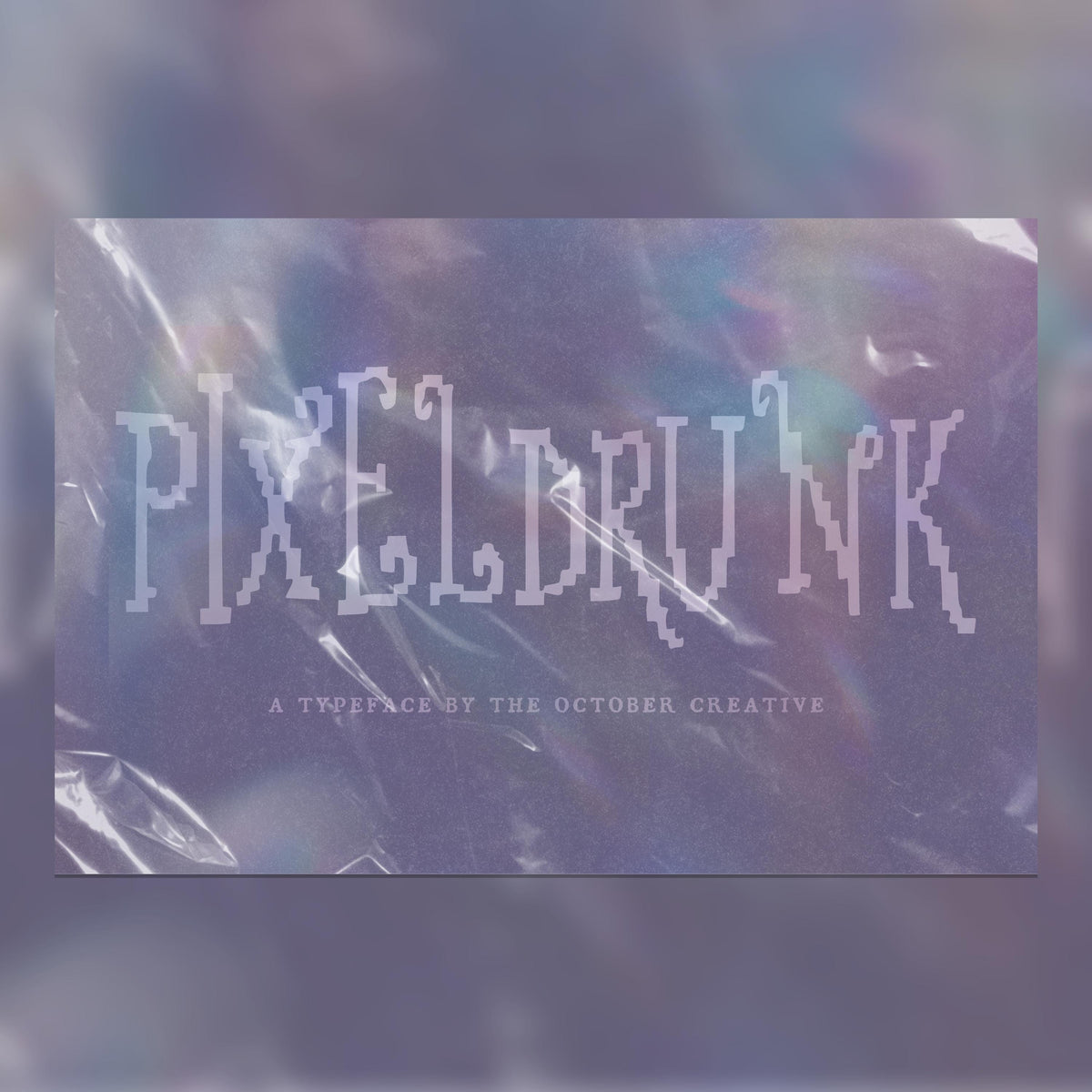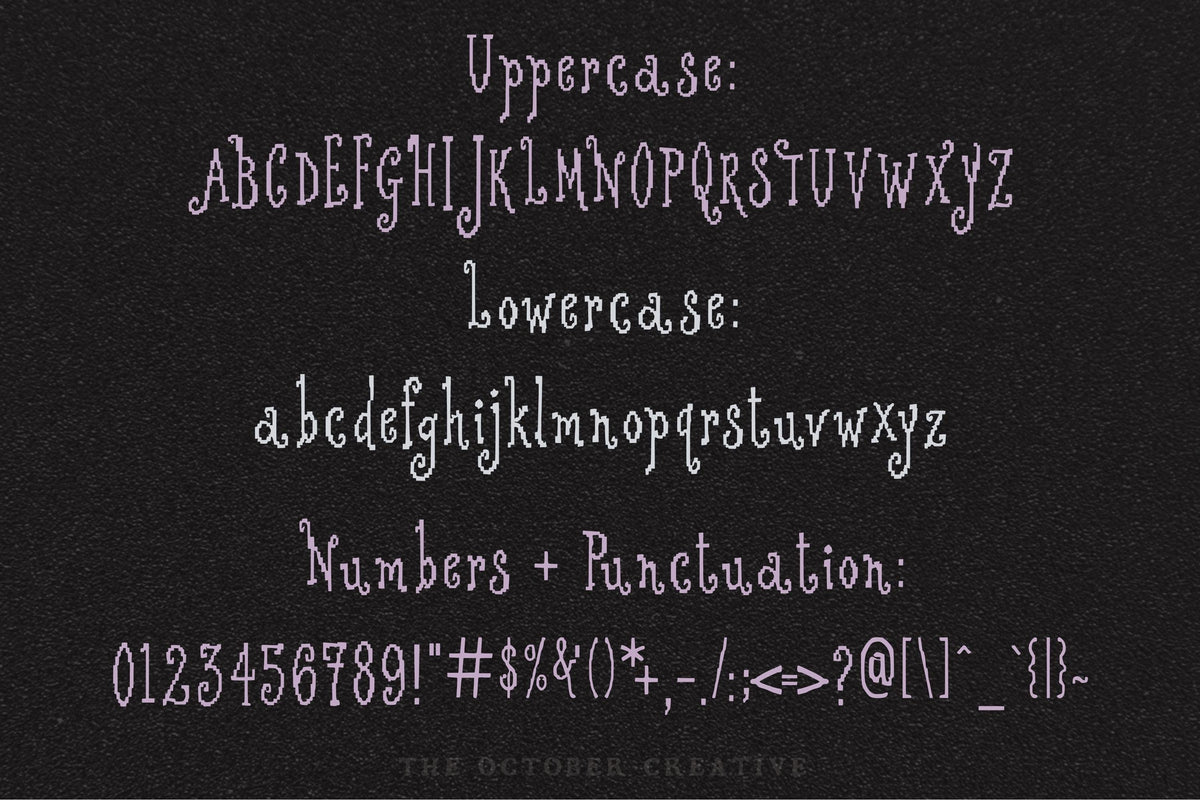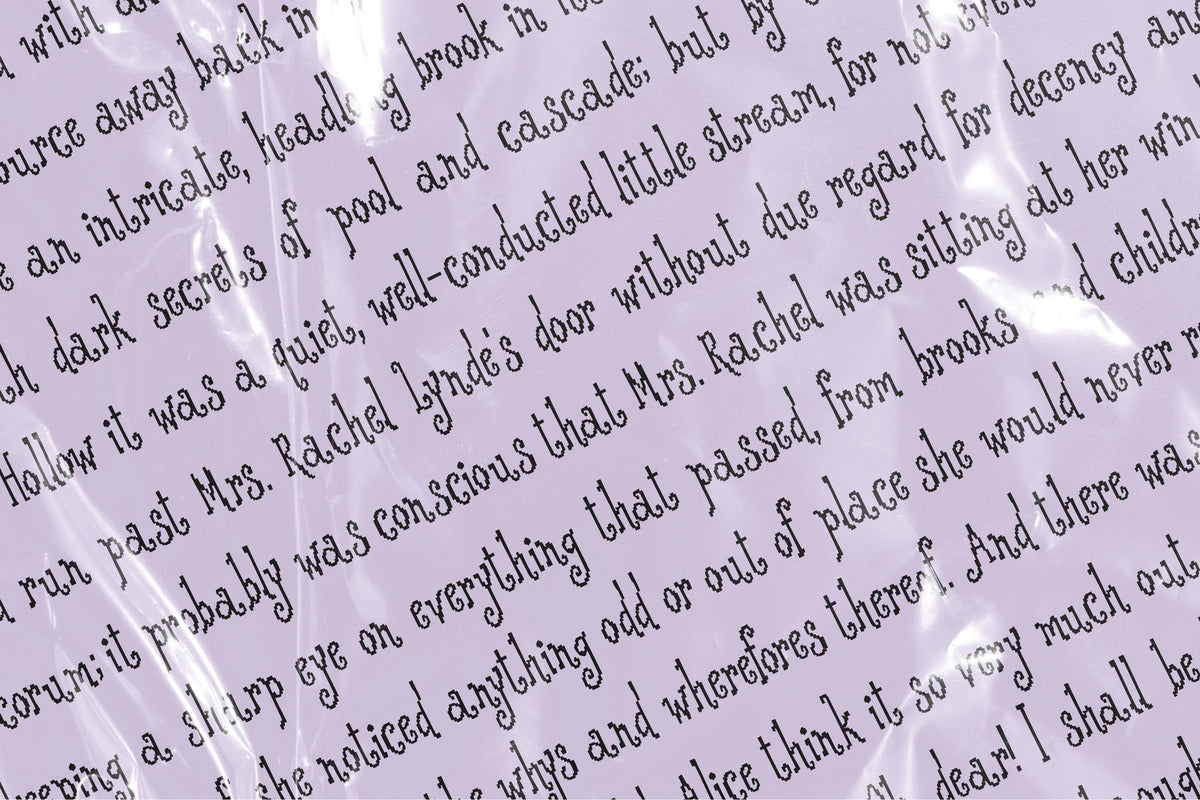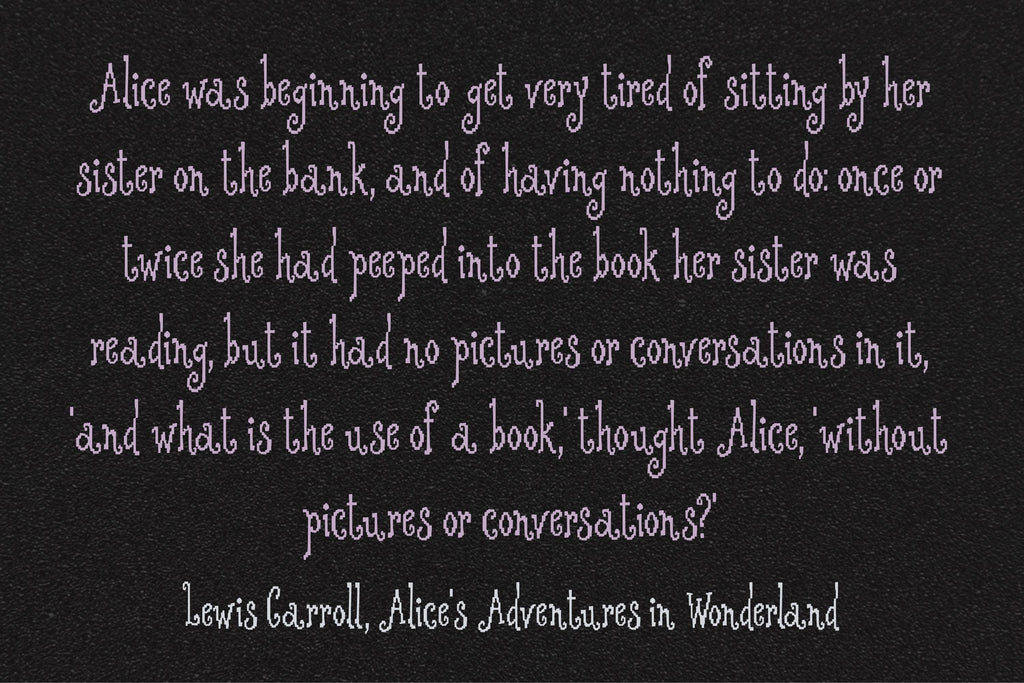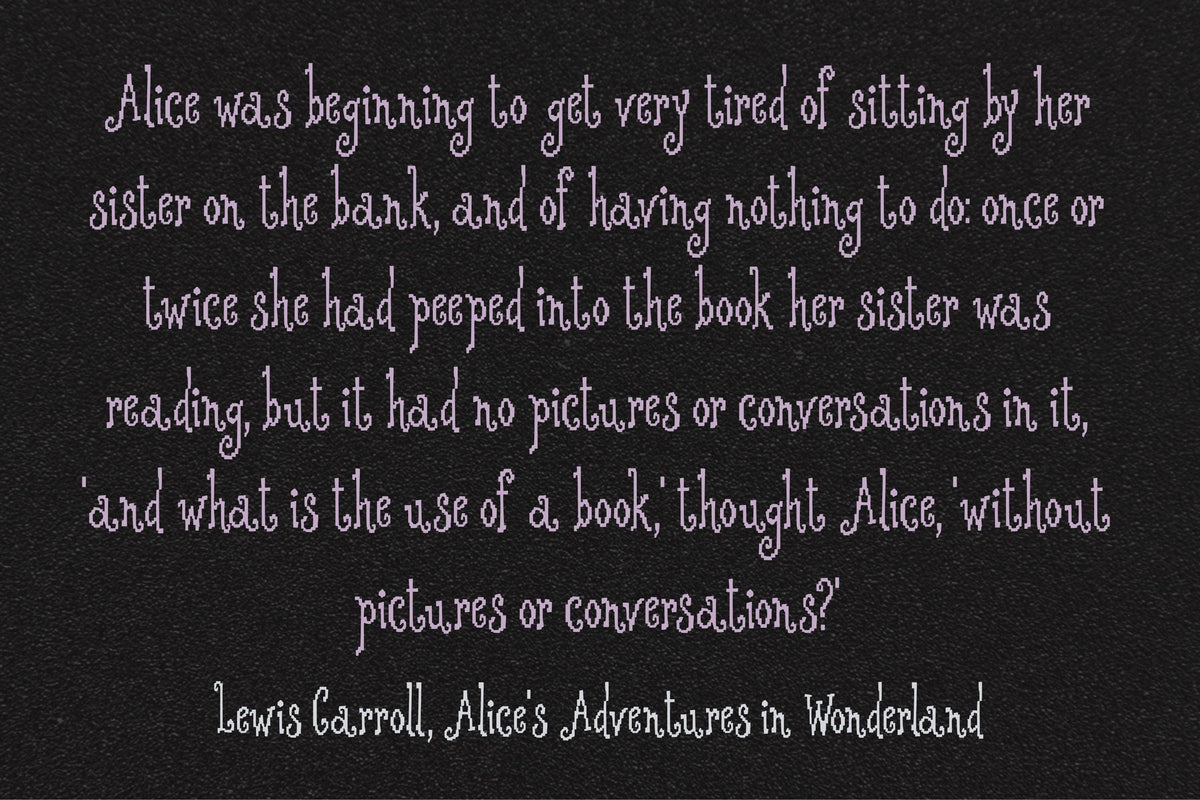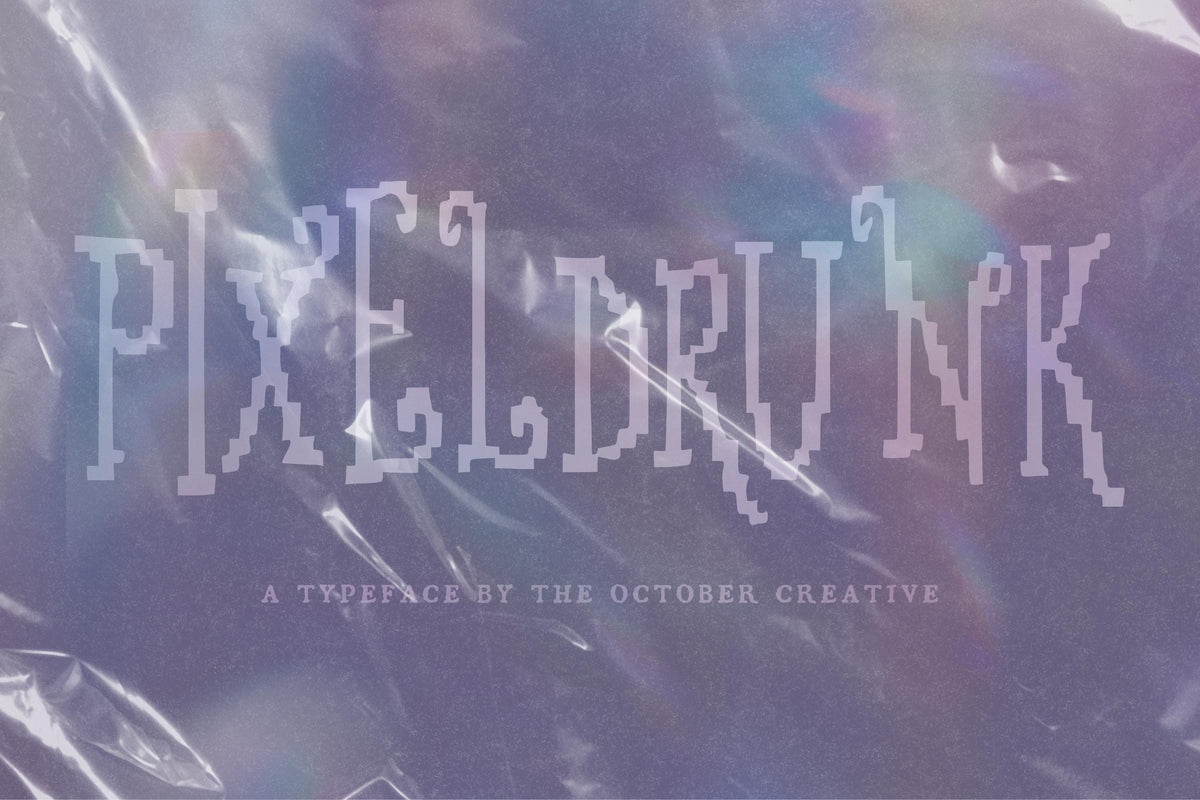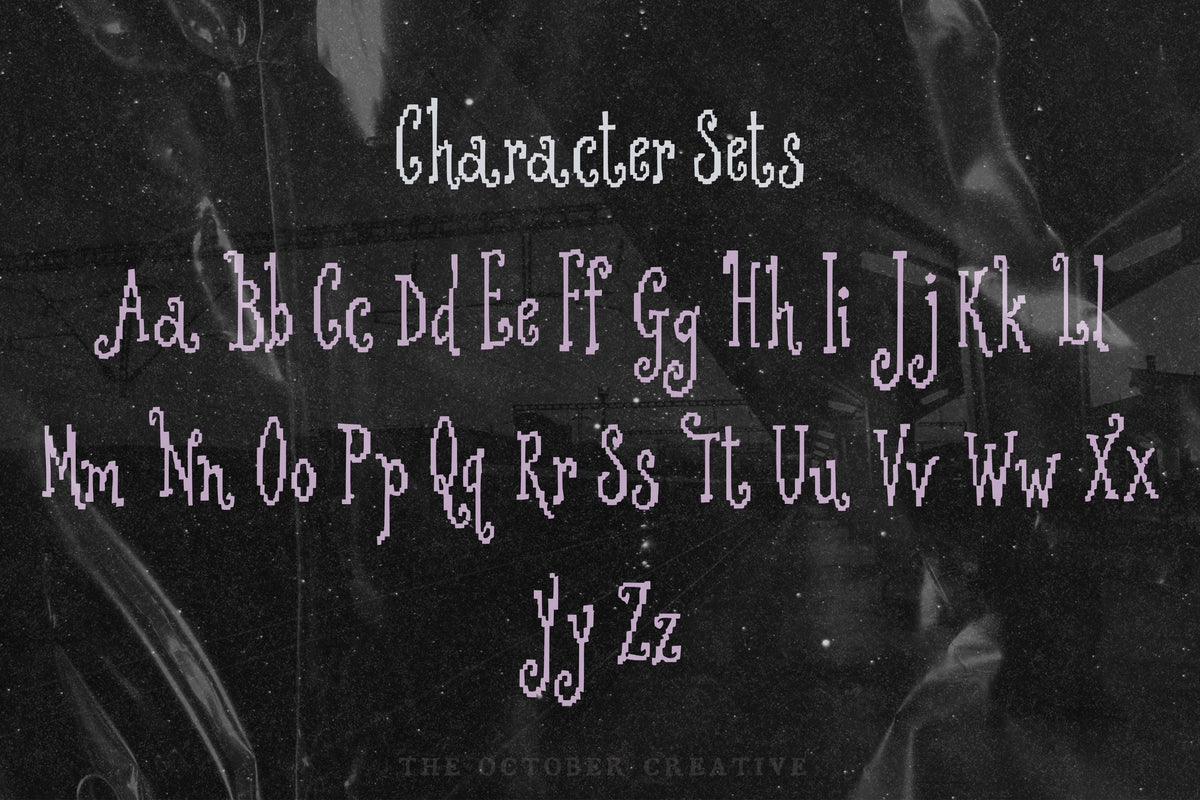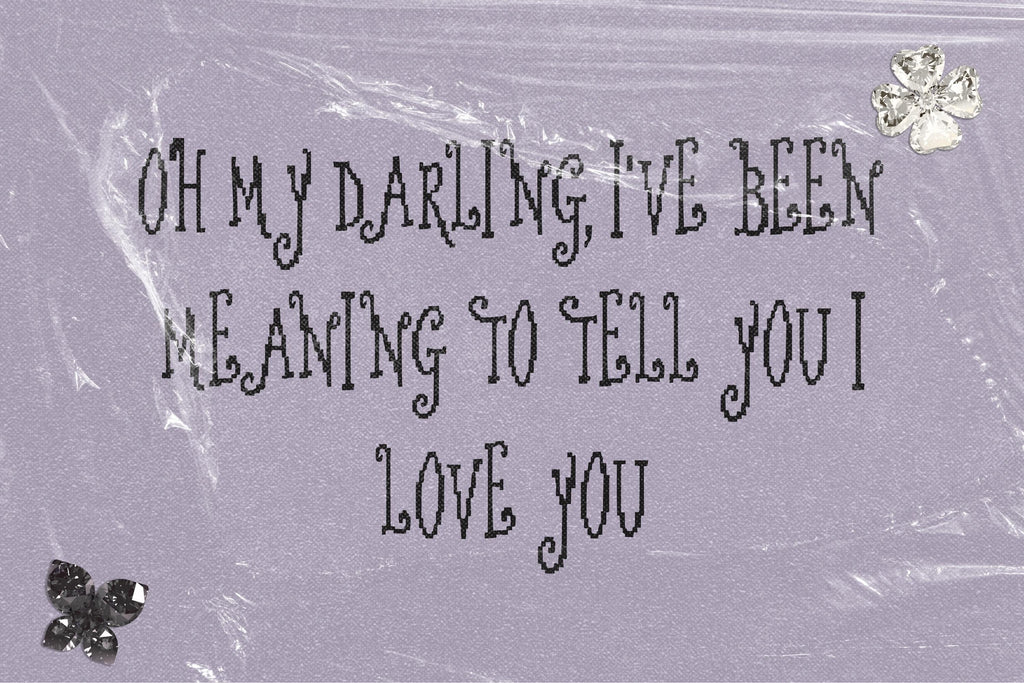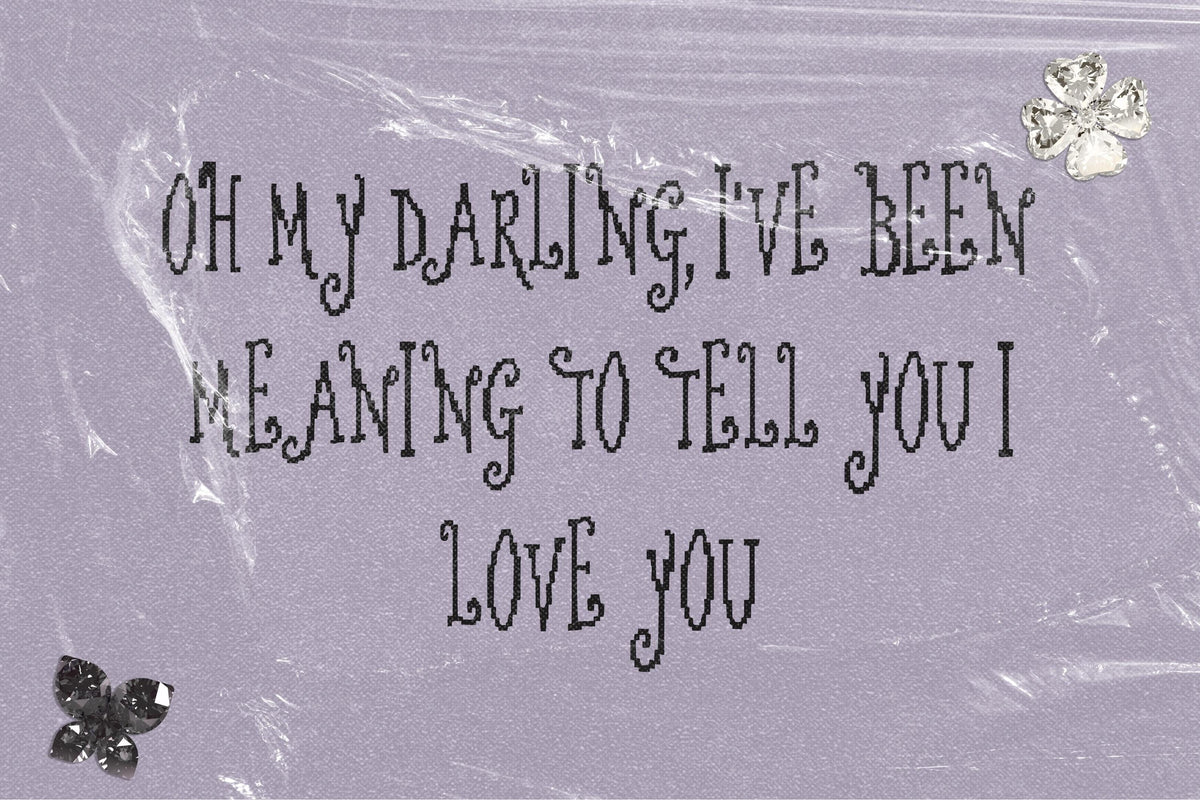
Pixeldrunk Font
Pixeldrunk turns your words into chunky little steps and squares, with the deliberately pixelated look of an old computer screen. It's a fun fit for zine covers, gaming party invitations, and posters with a fondness for early digital graphics.